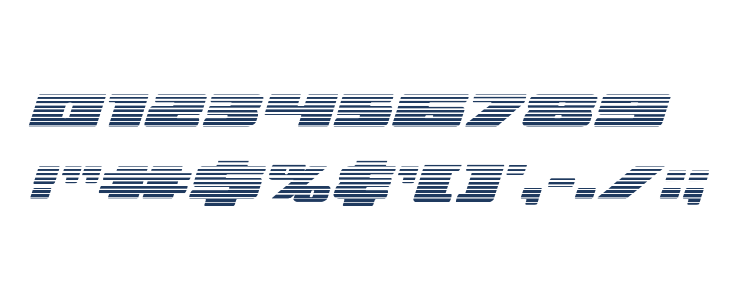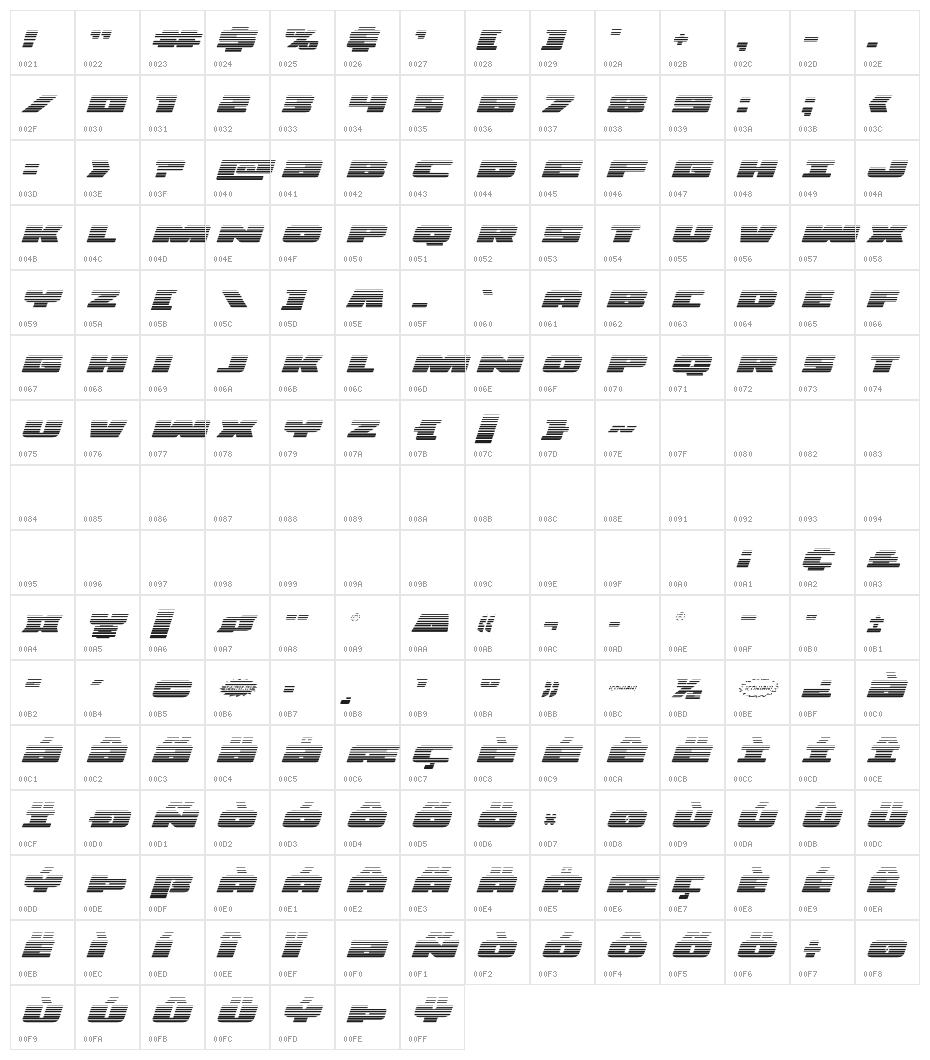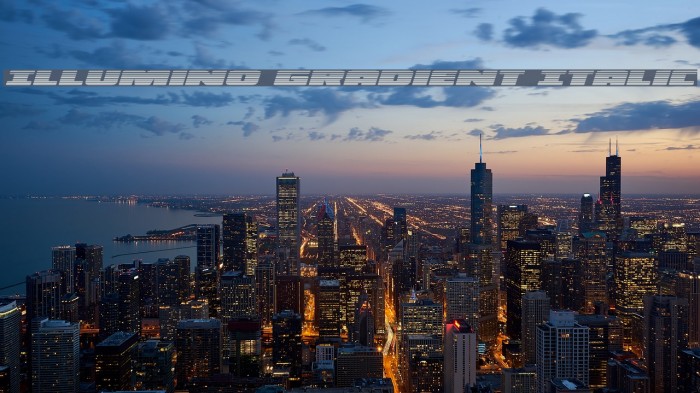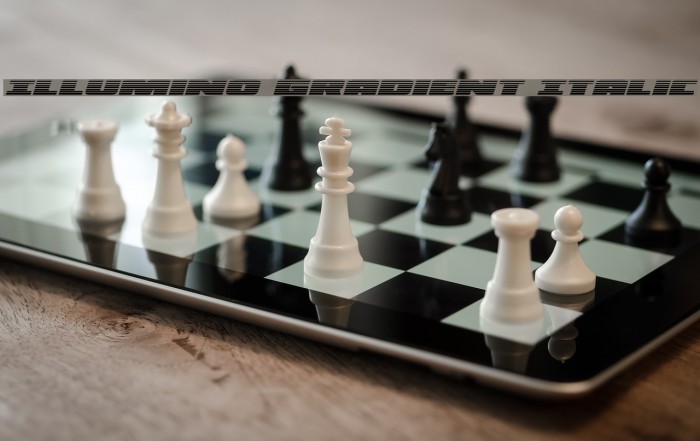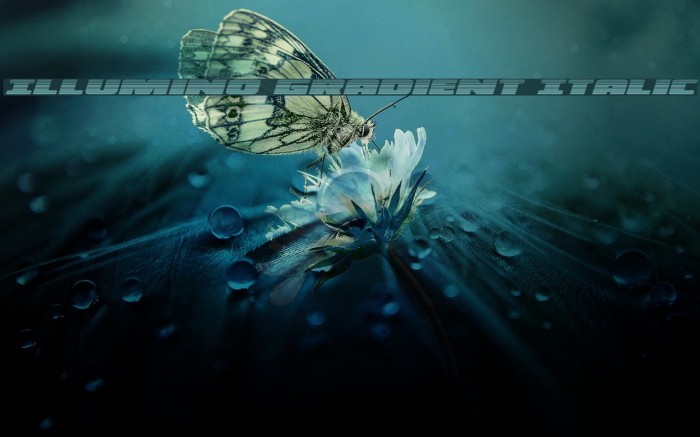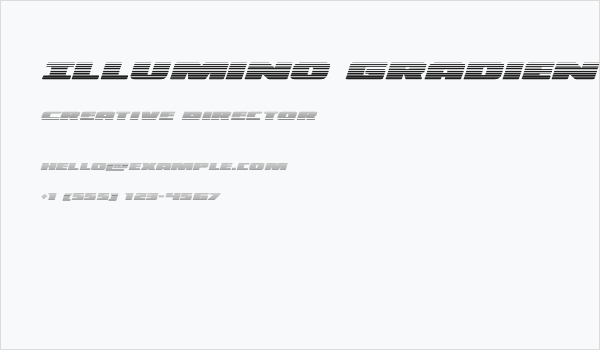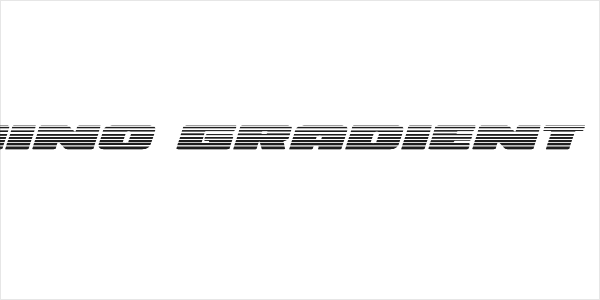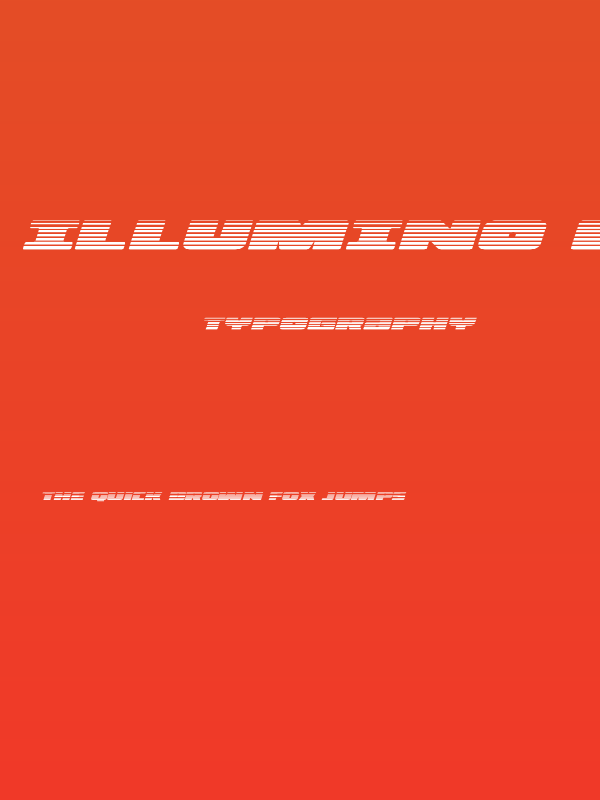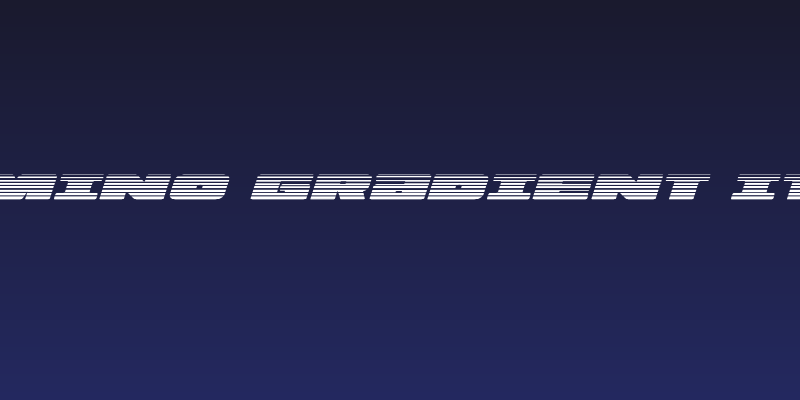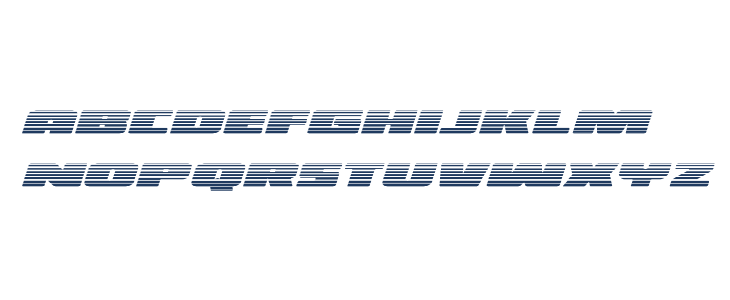
Illumino Gradient Italic Font
Illumino Gradient Italic Description
This font features a dynamic and futuristic design with a distinct italic slant. Each character is composed of horizontal lines that create a gradient effect, giving the text a sense of movement and energy. The bold and structured appearance makes it stand out, while the consistent line pattern across all characters ensures a cohesive look. The font is highly stylized, making it ideal for projects that require a modern and edgy aesthetic. Its unique design elements make it suitable for attention-grabbing headlines and creative displays.
| Proposed Projects | Ideal for sci-fi themed posters, video game graphics, tech branding, and modern advertising campaigns. |